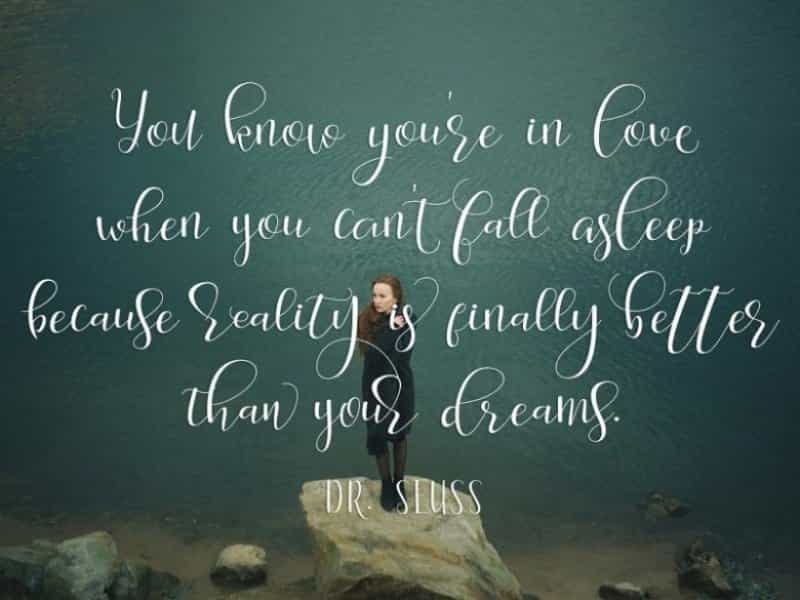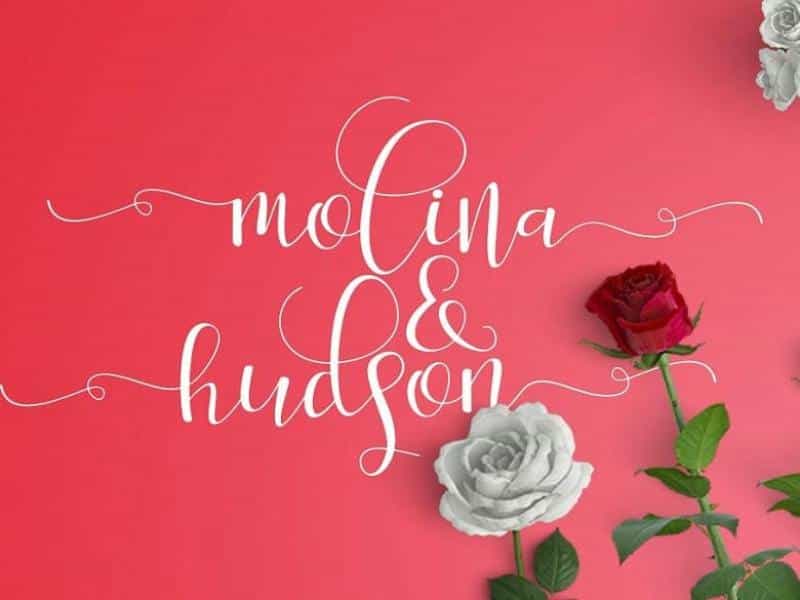
Introducing Salita Font! Salita is designed by Ijemrockart. Salita is a fresh new modern script with a handmade calligraphy style, decorative characters dancing baselines! So beautiful on invitations, like greeting cards, branding materials, business cards, quotes, posters, and more!